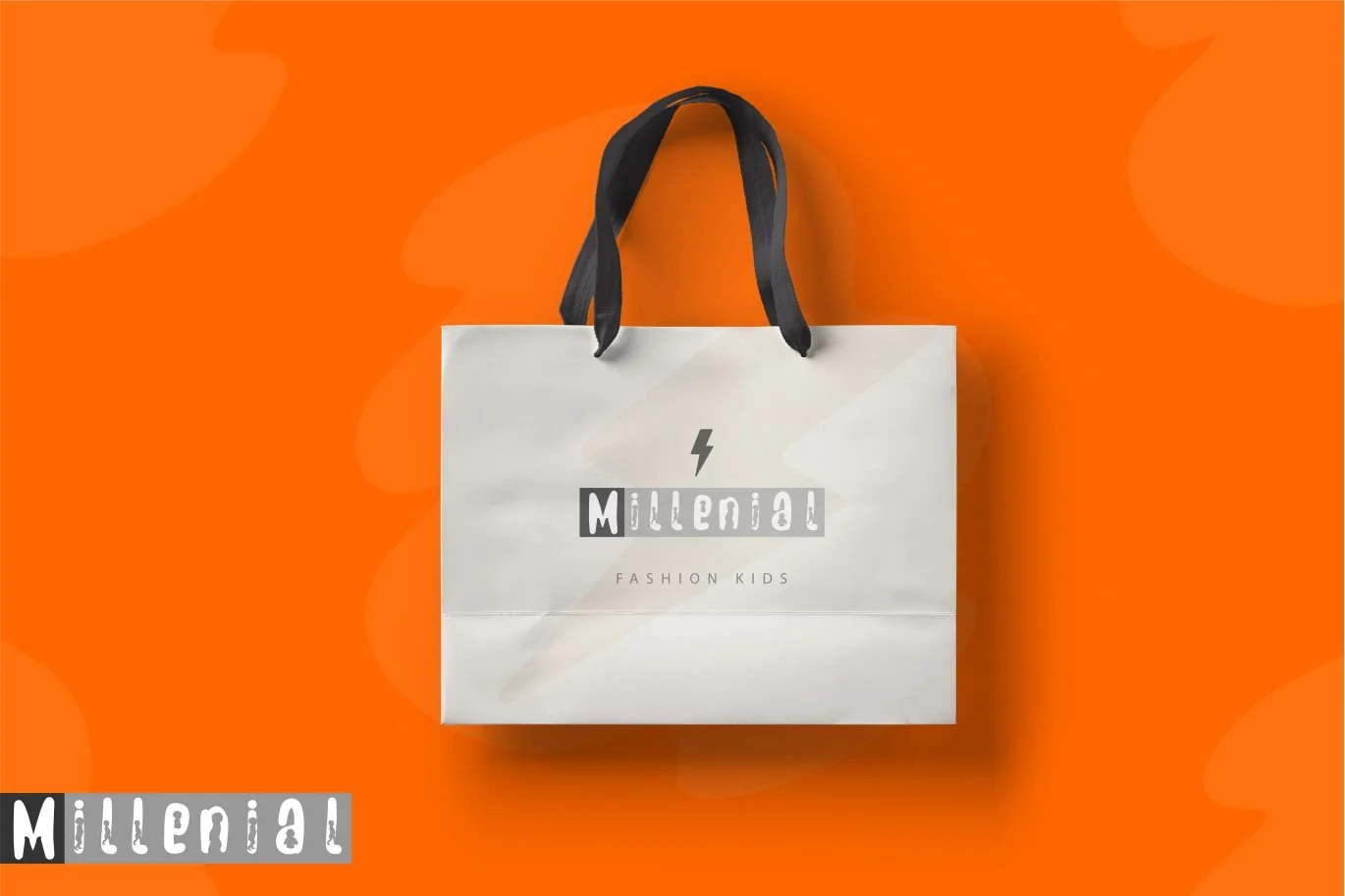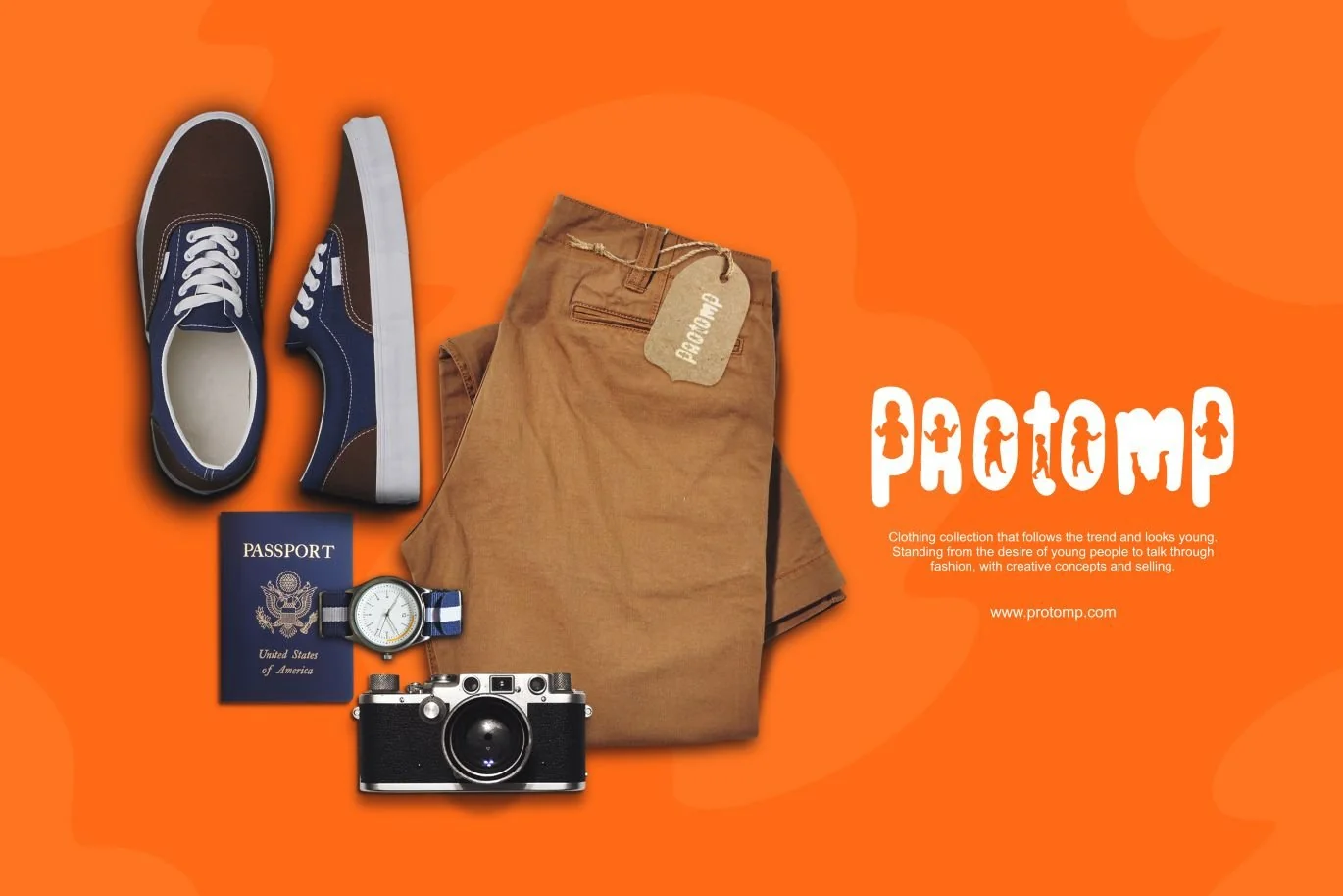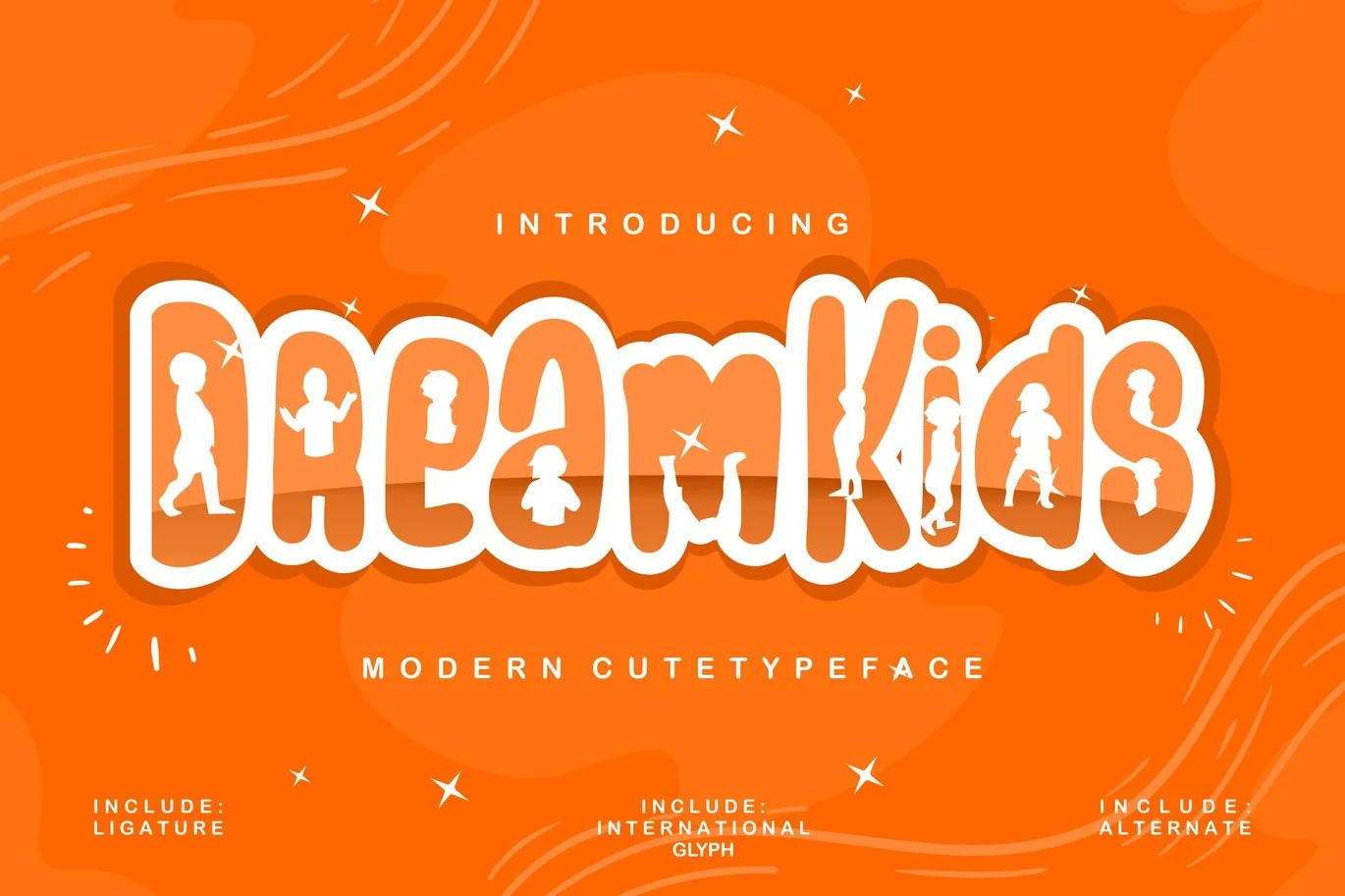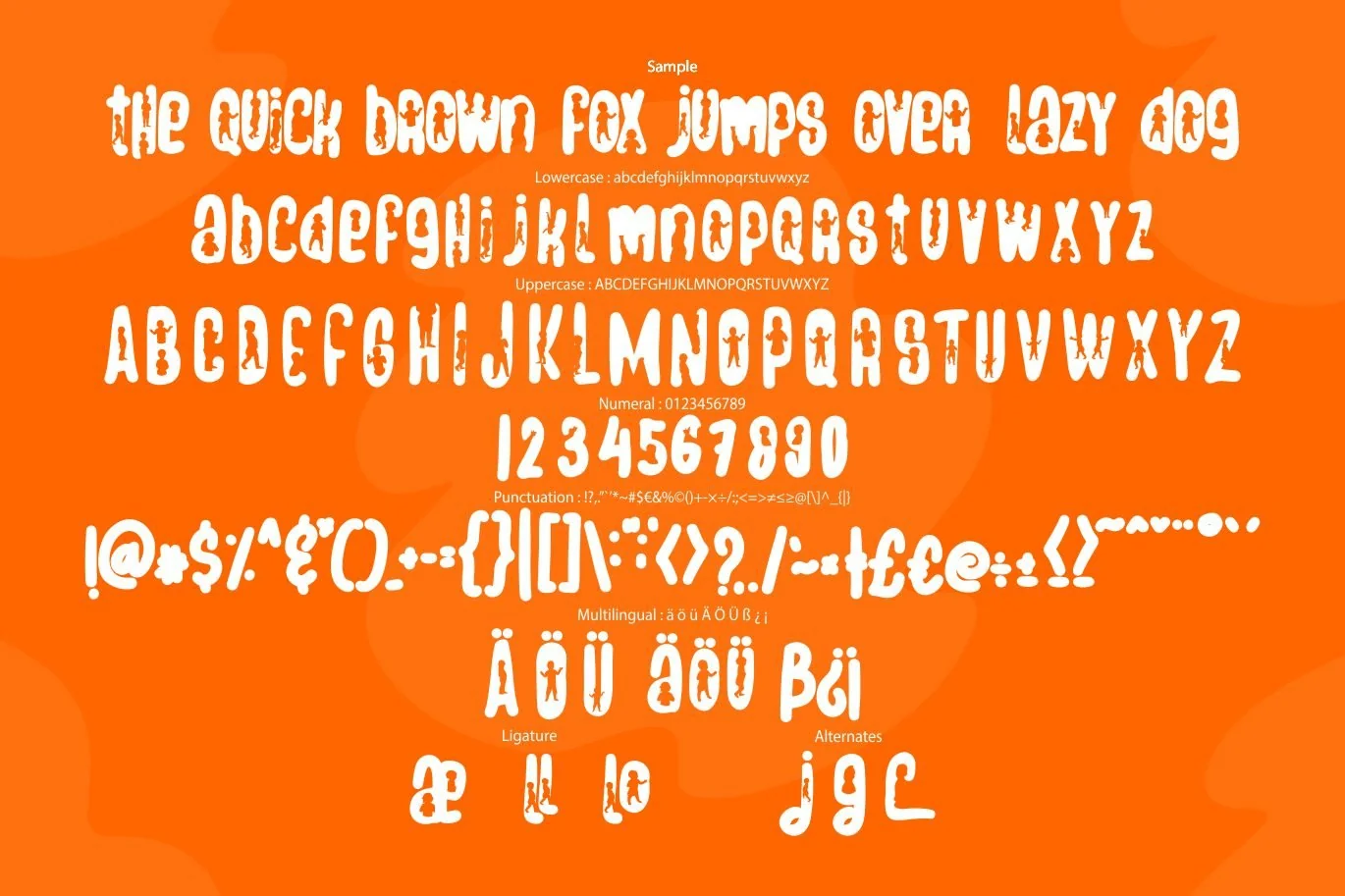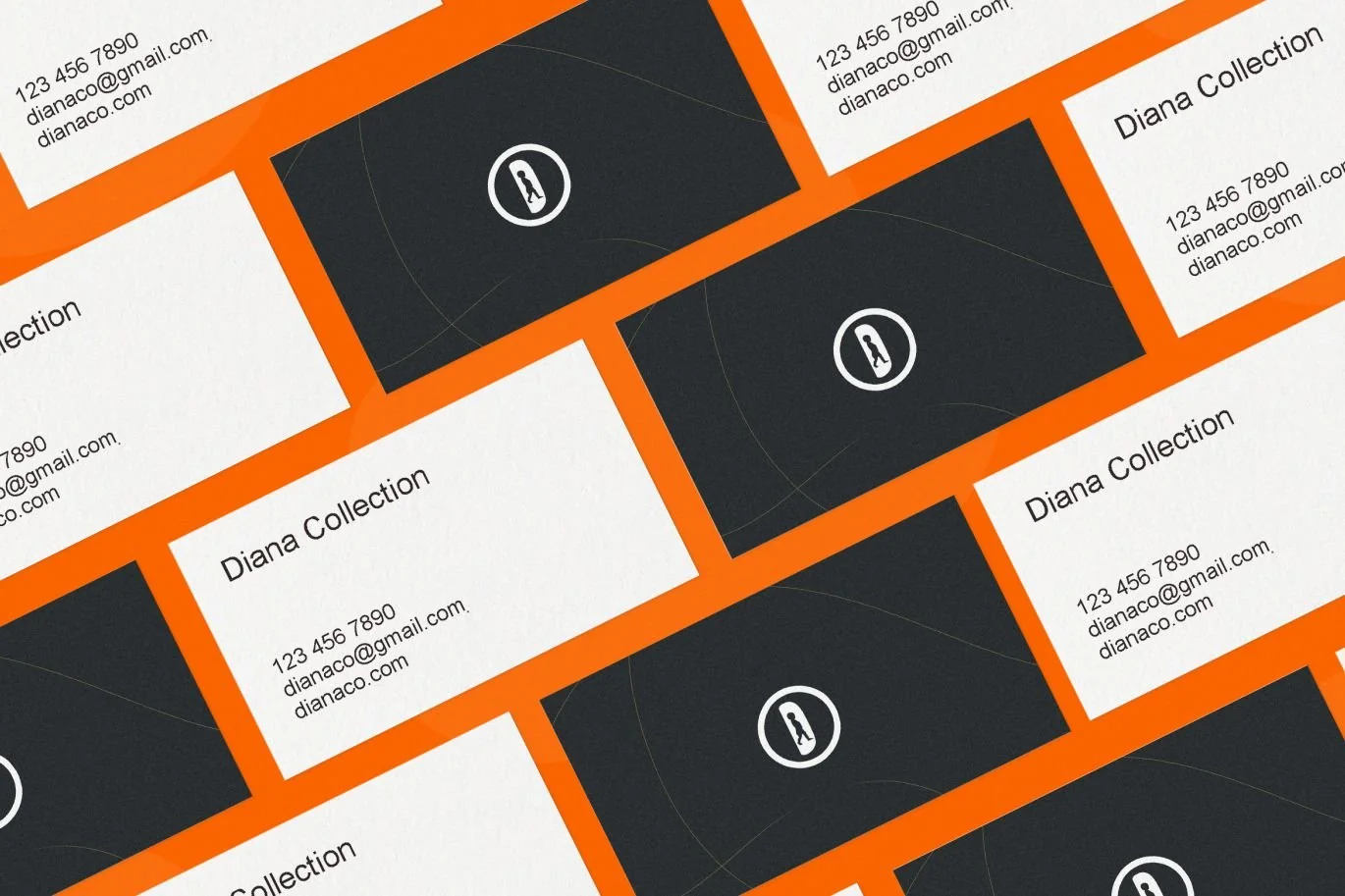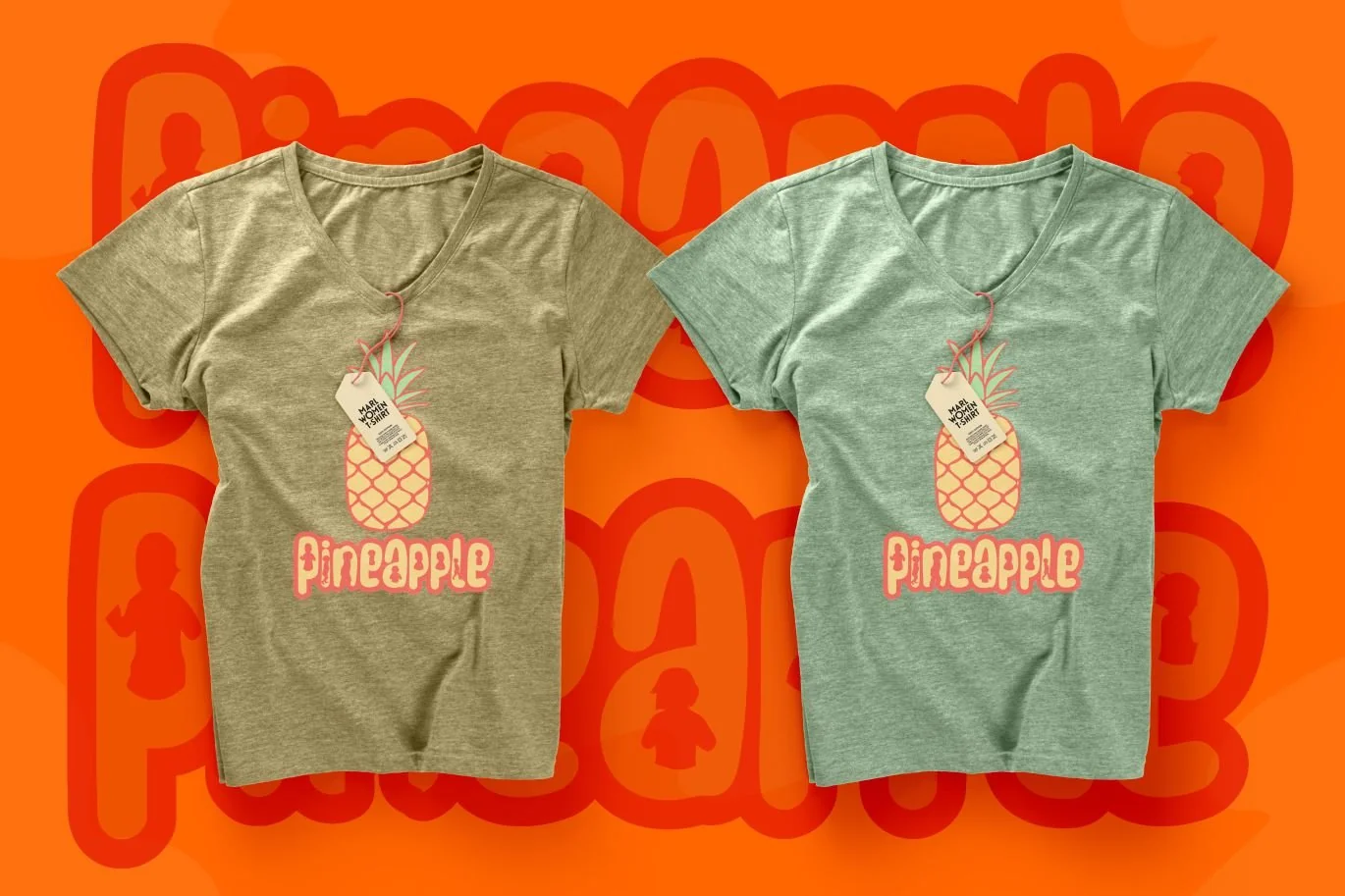
Dream Kids | Modern Cute Typeface
Dream Kids | Modern Cute Typeface with a calligraphy style, So beautiful on invitation like greeting cards, branding materials, business cards, quotes, posters, and more!